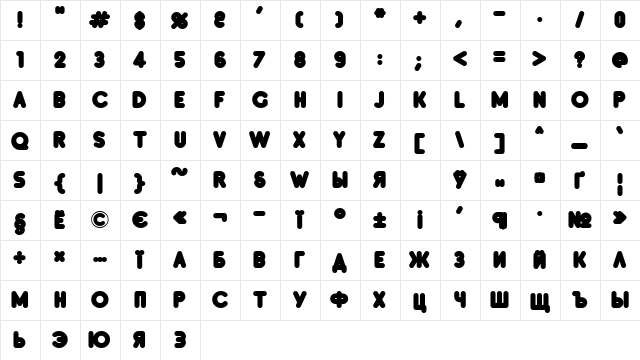
Inset8 Extra Bold
Inset8 is a composed and adaptable typeface that performs quietly and consistently across a wide range of design contexts. The heavy weight commands attention and anchors typographic hierarchies.